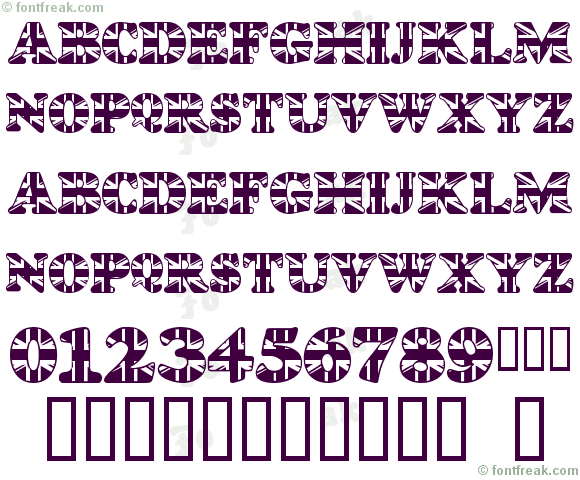
LMS God Save The Queen
About LMS God Save The Queen
The LMS God Save The Queen font by London Stokes is a striking display font that captures a bold essence, making it a captivating choice for various design projects. This decorative typeface features a unique blend of traditional and modern influences, characterized by its thick stroke weight and a playful yet authoritative presence. The font showcases an intricate design with contrasting black and white patterns, reminiscent of iconic British motifs, which adds depth and visual interest to any text.
The spacing in LMS God Save The Queen is designed for optimal readability while still maintaining a decorative flair, making it versatile for creative applications. This font stands out with its eye-catching decorative elements, making it particularly suitable for a range of design projects. Ideal use cases include wedding invitations that seek a regal touch, movie posters that aim to evoke a sense of drama, and restaurant menus looking for a distinctive, thematic presentation. Additionally, it can be effectively utilized in promotional materials for events or businesses that want to convey a vibrant and spirited identity.
In summary, the LMS God Save The Queen font free download is not just a typeface; it is a statement piece that elevates any design. Its unique characteristics and versatility make it a standout choice for those looking to infuse their work with a touch of personality and flair. Whether used in print or digital formats, this font is sure to leave a lasting impression.